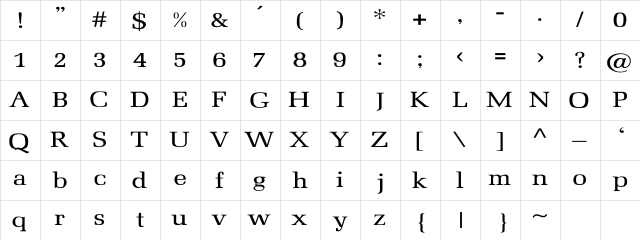
MeteorBold Regular
Complete MeteorBold Regular glyph index. Displaying only characters natively supported by MeteorBold Regular font.
Design Context for MeteorBold
MeteorBold is a composed and adaptable typeface that performs quietly and consistently across a wide range of design contexts. Its bold stroke weight gives it real presence on the page.